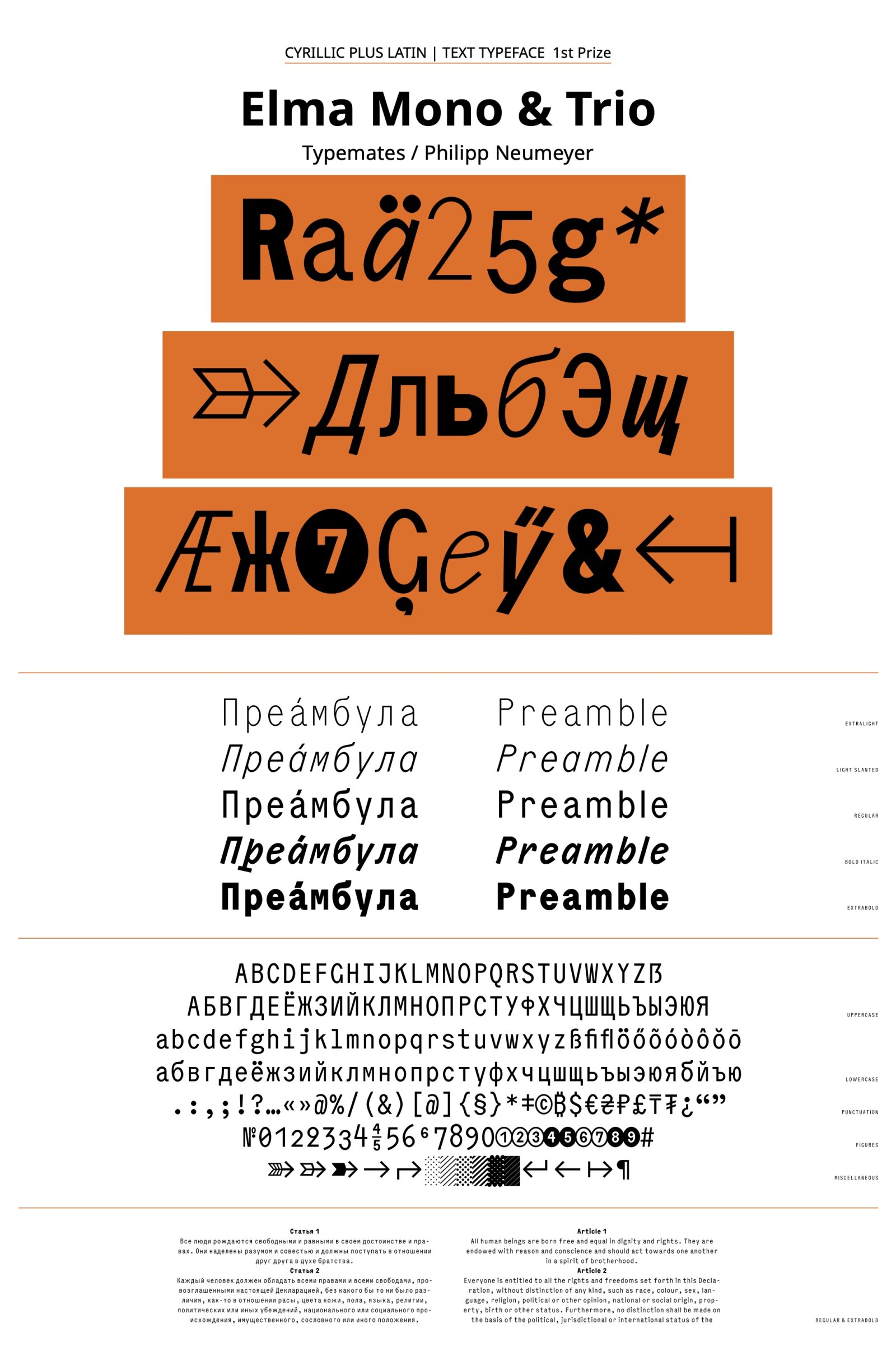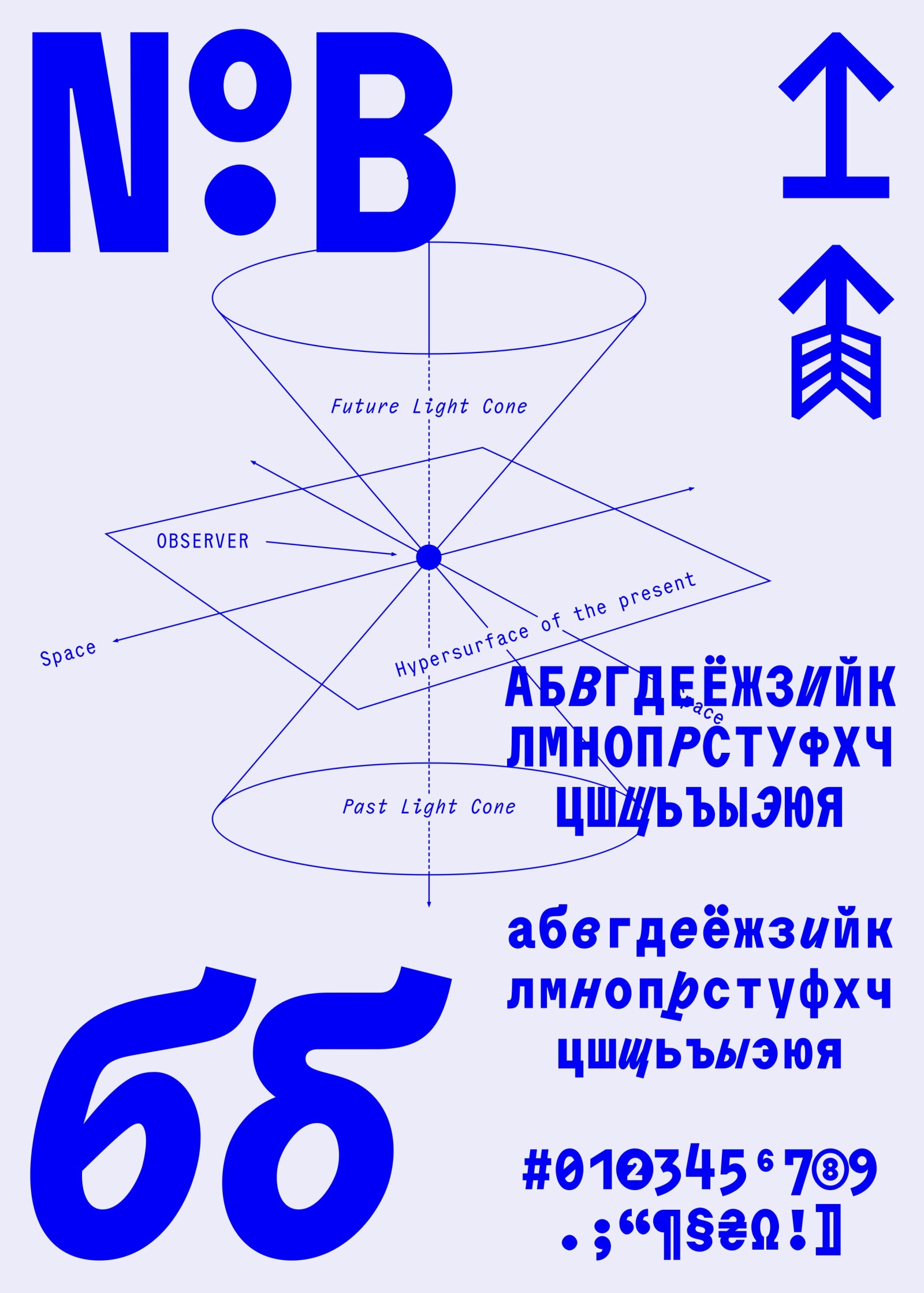
Elma Mono & Trio
by Philipp Neumeyer
Cyrillic
B1 Text Typefaces with a latin complement
The typeface is a system of two fixed-width families—Mono and Trio—that operate at the intersection of pragmatism and mischief. While the Mono family takes the classical monospace approach with one fixed width, the Trio works with three fixed widths to make a mockery of “legitimate” proportional designs. The fonts construction is based on a compact Neo Grotesque accented with generous spacing and a broken-curves design—deliberate rough changes of direction—that stands out used big, but blends in set small. With its wide range of weights, from Extralight to Extrabold, and not just one but two corresponding 16° angled versions—an Italic and a Slanted—the typeface can set the mood, whatever it may be. With more than 820 glyphs per style and native-approved Cyrillic the font speaks more than 270 languages. Plus, it is packed with a handful of useful alternates, advantageous arrows, figures, case-sensitive punctuation and contextual alternates to make it a tool for all typographic needs.